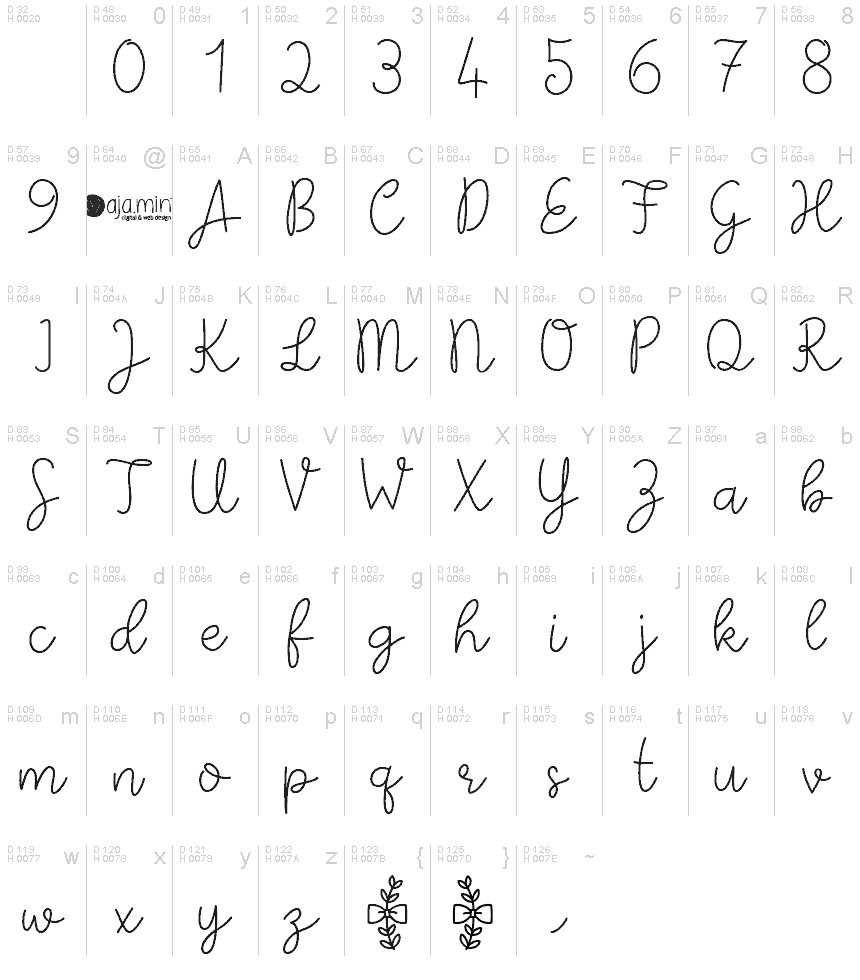
Paper Bow DEMO
Paper Bow is a captivating handwritten font that exudes a whimsical and refined charm. Crafted by the talented designer maja.mint, this light-weight typeface boasts a graceful, flowing aesthetic that effortlessly blends elegance and playfulness. The organic, script-like strokes and delicate curves convey a sense of warmth and authenticity, making it an alluring choice for a wide range of design applications.
From wedding invitations and stationery to branding and editorial layouts, Paper Bow's versatility shines through. Its distinctive personality lends itself beautifully to projects that seek to convey a sense of artisanal craftsmanship, personal touch, or a touch of vintage-inspired sophistication. The font's distinct character and versatility make it a captivating addition to any designer's toolkit.
This is the demo version of Paper Bow, a lovely handcrafted script font.
TIP: Type ~ to add an upstroke.